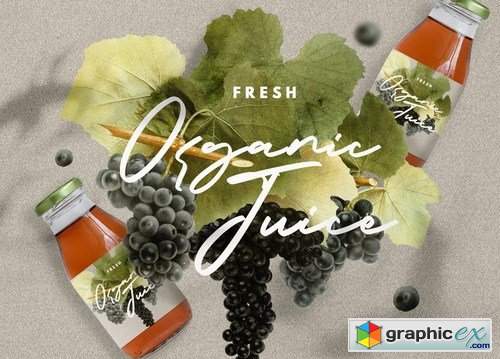
Danken - Signature Script
With an original handwritten curve, Danken comes with a variety of characters and features in it. These characters include uppercase, lowercase letters, numbers and punctuation, there are also several multilingual characters, which makes it easy for you if you want to use a language other than the existing characters.